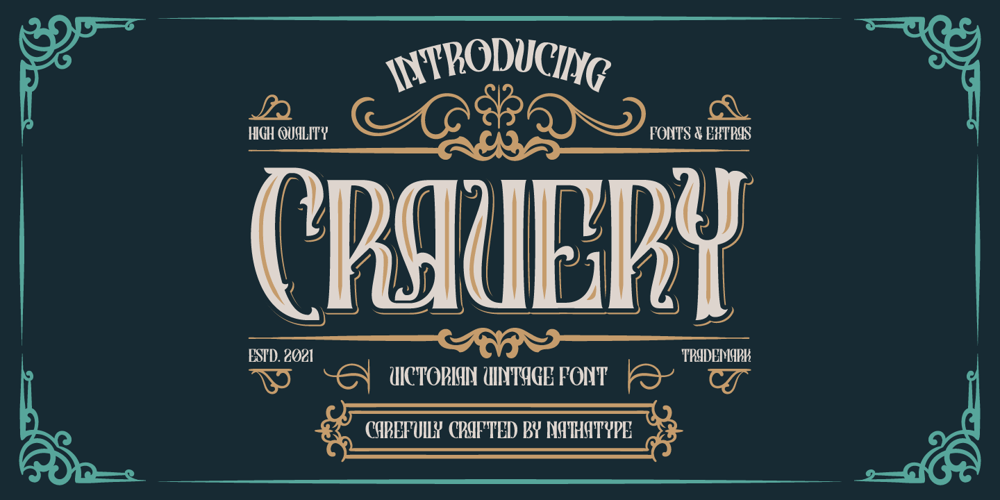
Cravery Font Family was designed by Donis Miftahudin and published by Nathatype. Cravery contains 3 styles and family package options. Hi, Everyone! Want font to make your branding bold? Looking for a fabulous, vintage, and adventure font? We’ve got what you want.Cravery- A Vintage FontWild Month is a a typeface that is made all in uppercase. An excellent choice to add the right amount of retro vibes. This typeface with artistic style looks very interesting for loads of different projects and promotions. A great all-in-one package for your logo, book cover, poster, t-shirt, branding, and advertisement needs.Our font always includes Multilingual Support to make your branding reach a global audience. Features: Ligatures Alternates Stylistic Set Swashes Bonus Ornament PUA Encoded Numerals and Punctuation Thank you for downloading premium fonts from Nathatype